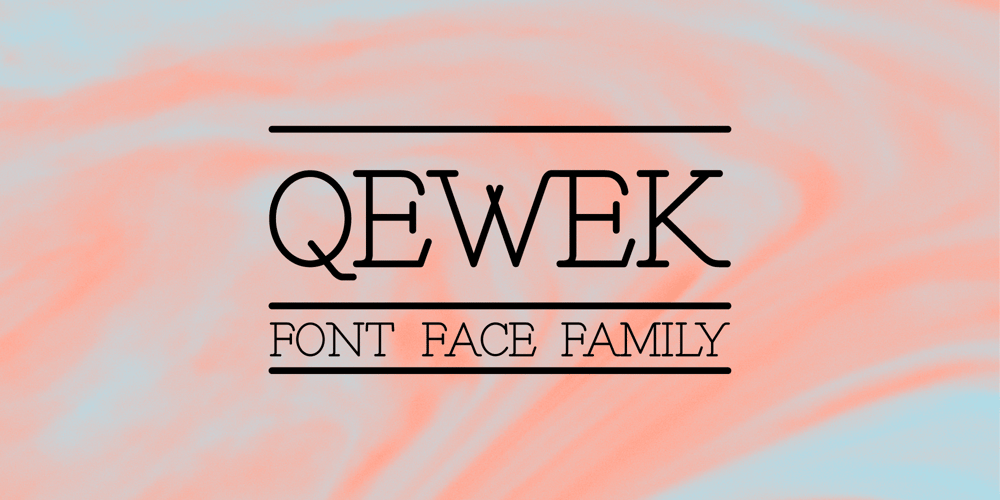
Qewek Font Family was designed by Amir Asgari and published by Amir Asgari. Qewek contains 3 styles and family package options. The Qewek Font Face Family created according to the 20th Century’s famous fonts structure adopted and recreated to use for today’s platforms. The Font Family Supporting European Languages such as Spanish, French, German, Swedish, and Turkish. The Qewek family could be using postmodern, surreal, and many design styles. Also, Qewek has a so unique and sweet look with a functional shape that is completely awesome for use in print base media and also digital base magazines and newspapers.Just imagine you reading a magazine with a font that is at the same time completely new and also has a classic shape.